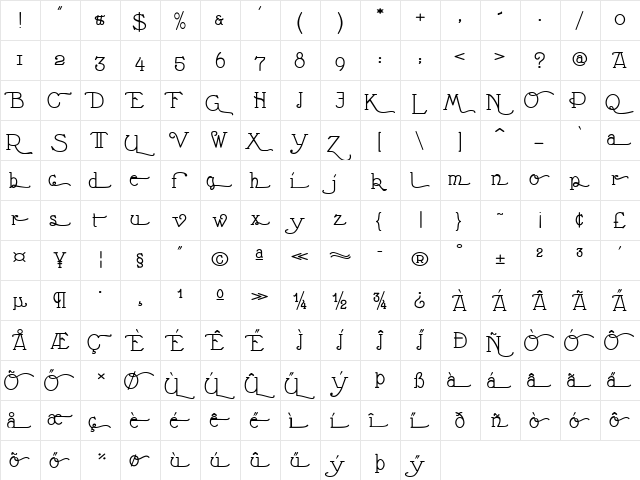
Nathan Alternates-Semi-expanded Regular
| Foundry | Peter Wiegel |
| Designer | Peter Wiegel |
Design Context for Nathan Alternates-Semi-expanded Typeface
Nathan Alternates-Semi-expanded takes a measured approach to typography — its balanced proportions and neutral character make it a reliable workhorse for both digital and print work.